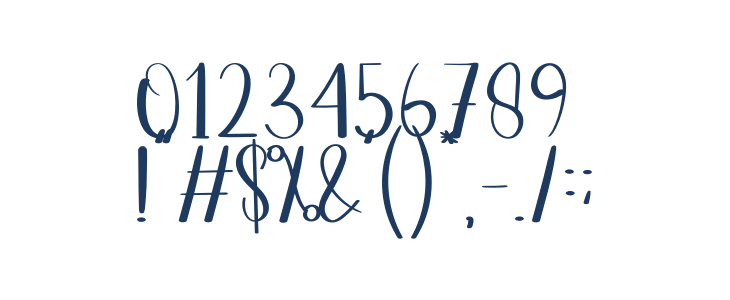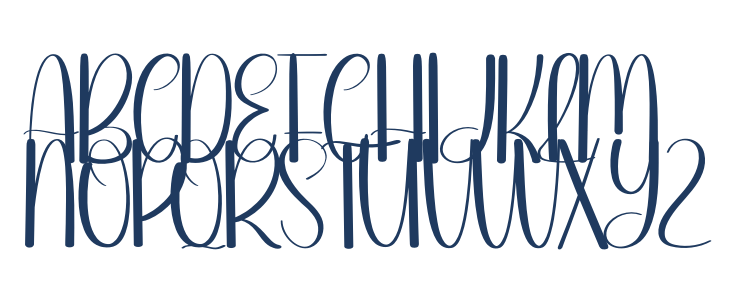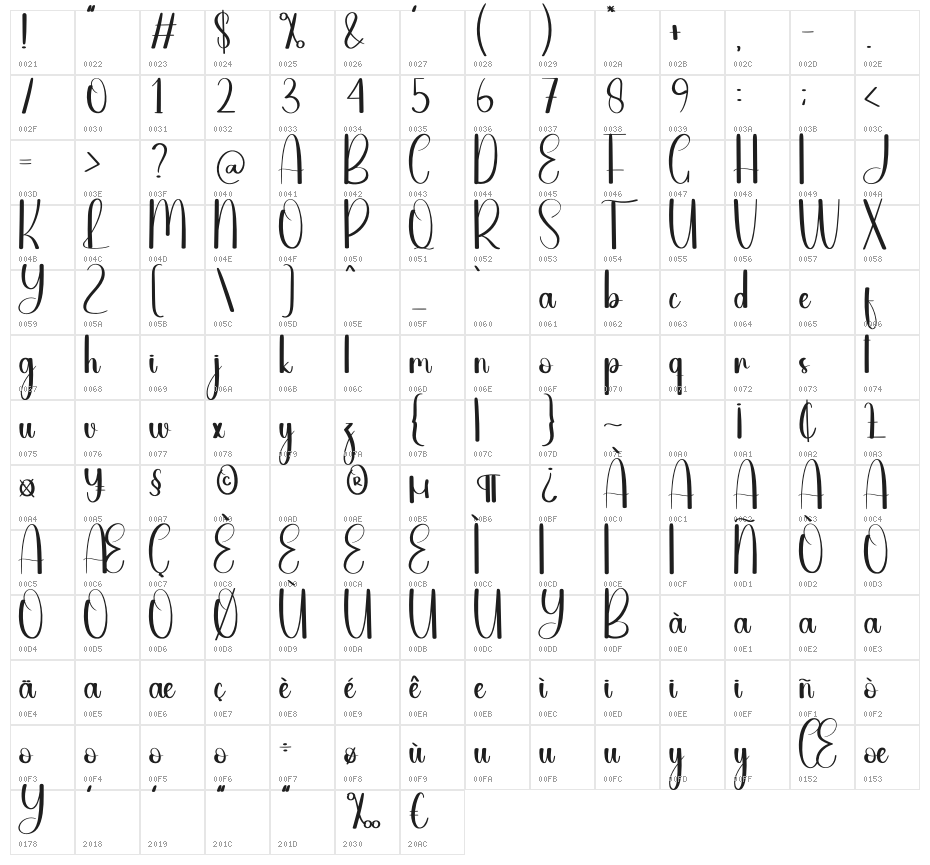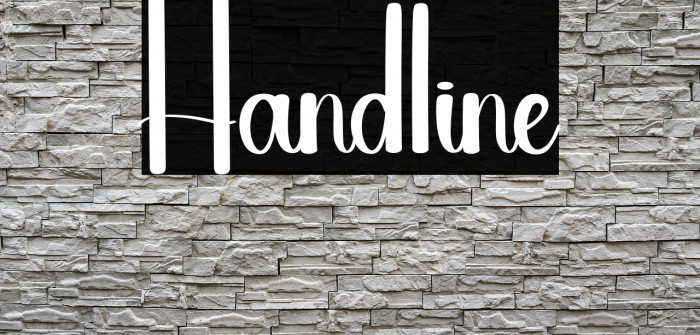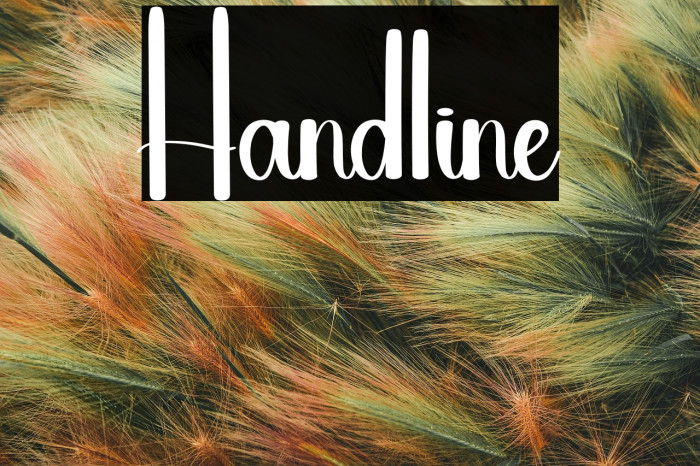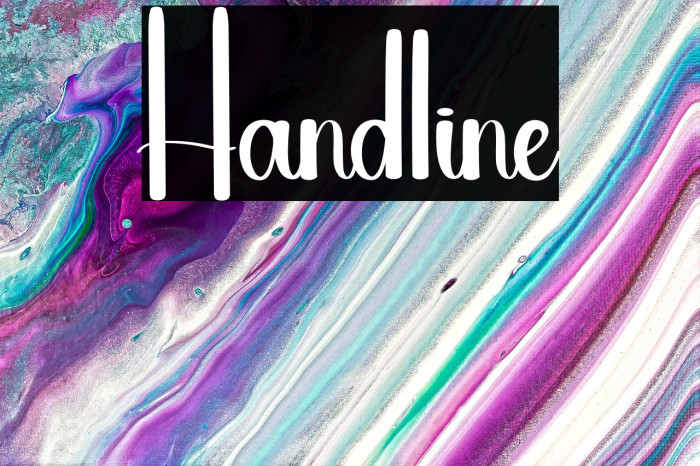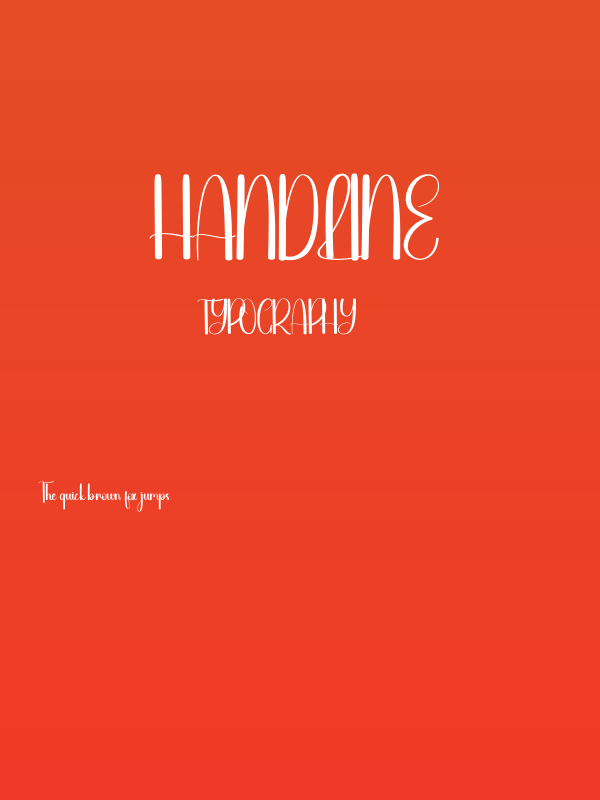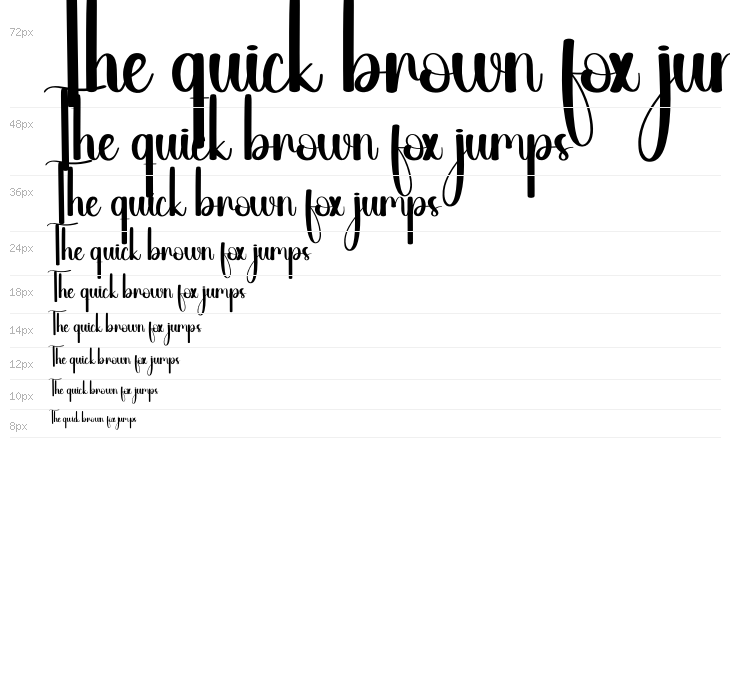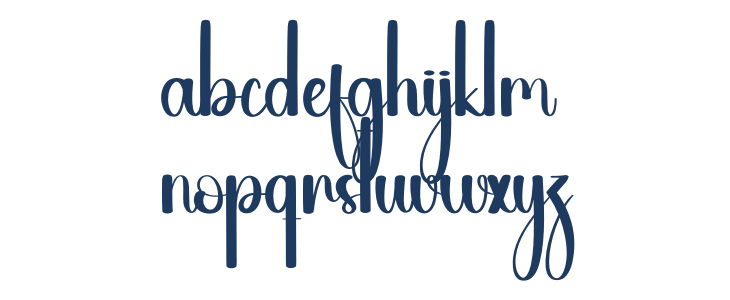
Handline Font
Handline Description
A playful, hand-drawn script font with tall, narrow uppercase letters and rounded, connected lowercase letters. The uppercase characters are elongated with whimsical curves, while the lowercase letters have a bold, brush-like appearance. Numbers and symbols follow the same hand-drawn style with varying stroke thickness.
| Width | Condensed |
| Overall Style | Playful, Casual, Artistic |
| Use Case | Headlines, Logos, Invitations, Decorative text |
| Proposed Projects | Invitations, greeting cards, branding for creative or casual products, social media graphics, and playful headlines. |